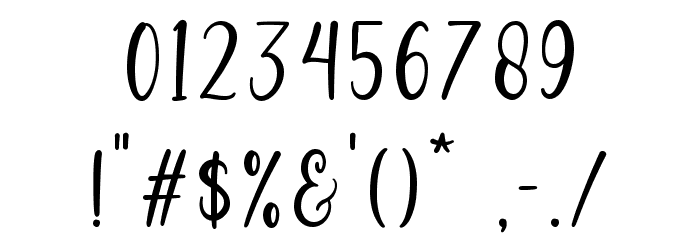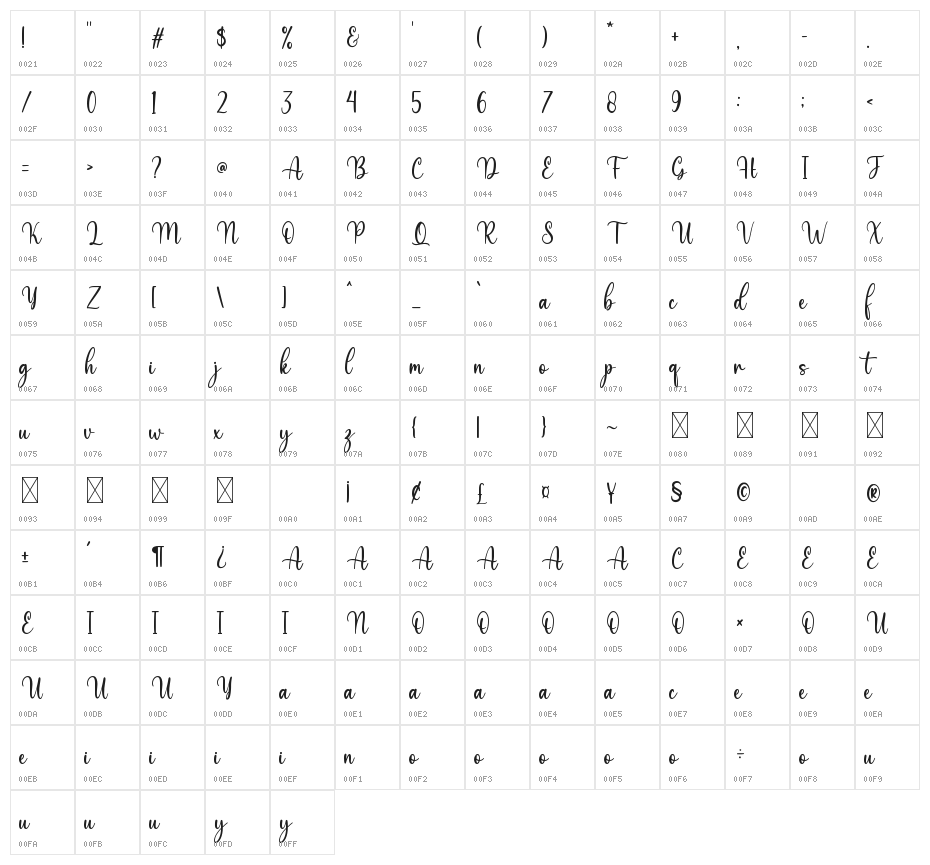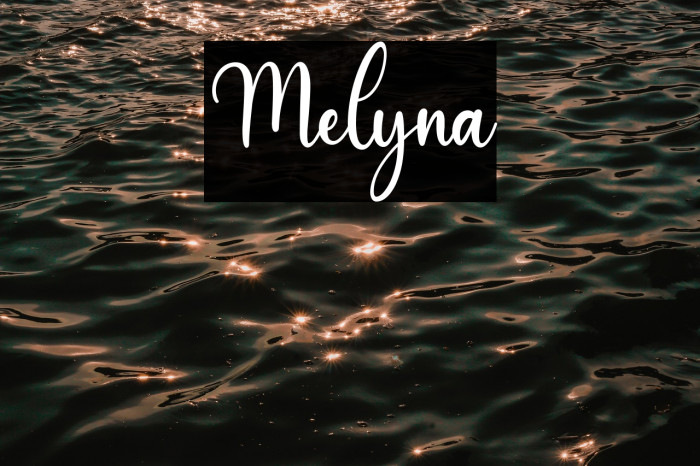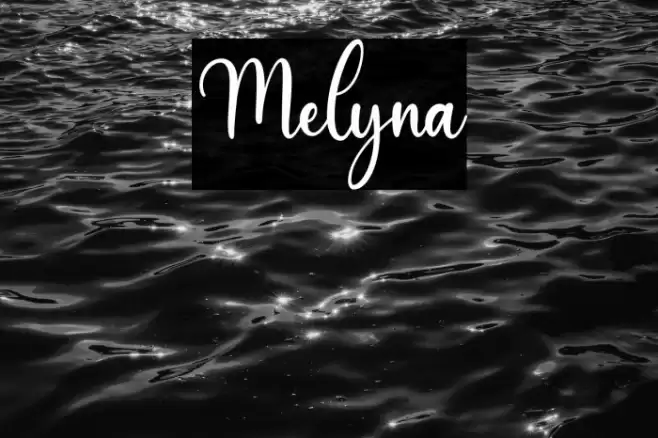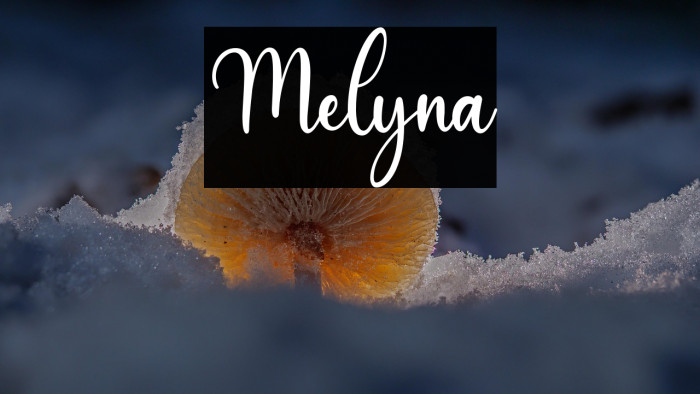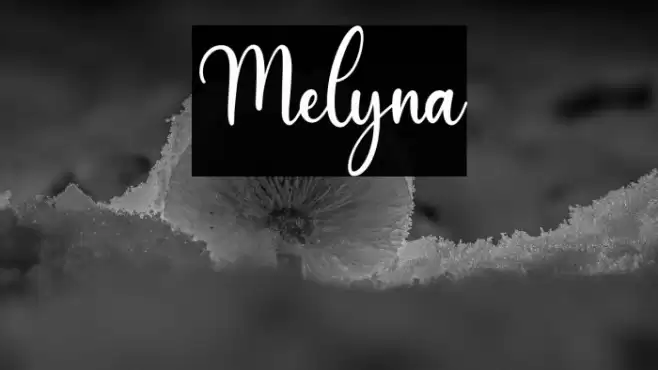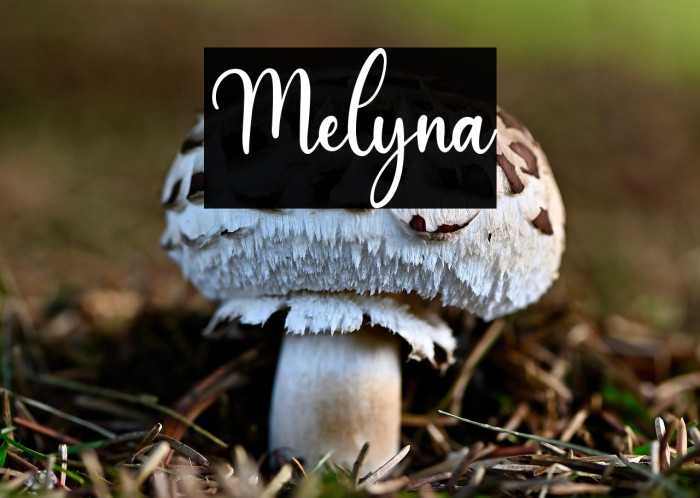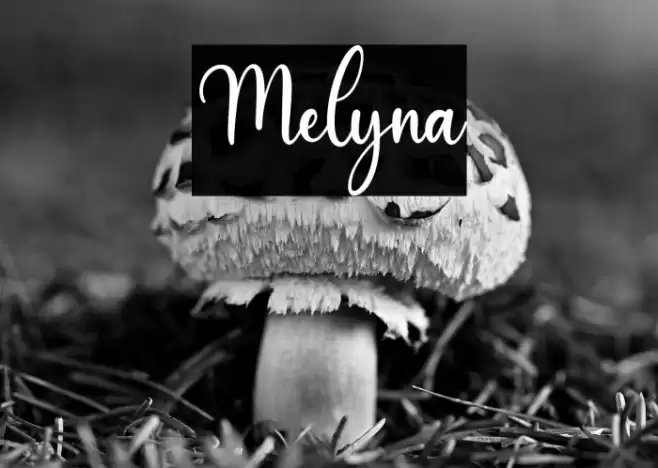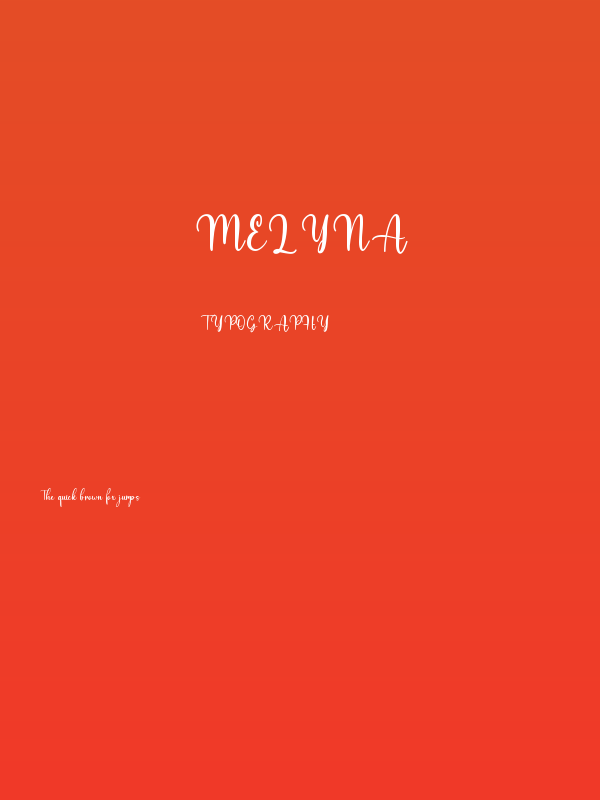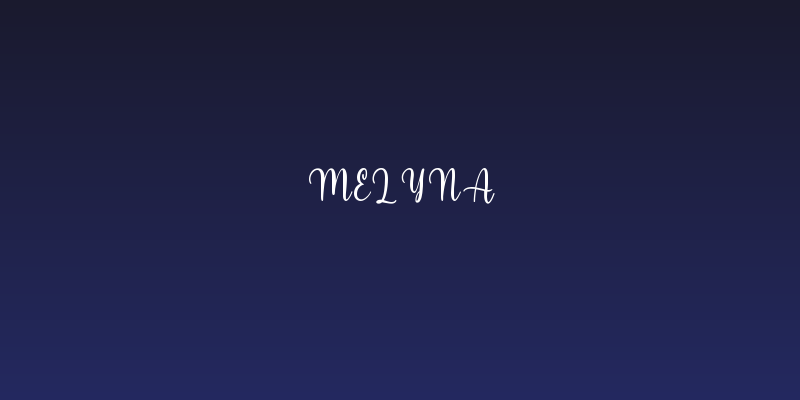
Melyna Font
Melyna Description
This font exudes a playful and elegant charm, characterized by its flowing script style. The uppercase letters are gracefully looped and connected, giving a sense of continuity and fluidity. The lowercase letters maintain a consistent style, with smooth curves and a slightly exaggerated slant that enhances its handwritten appearance. The numerals are clear and distinct, maintaining the same playful elegance as the letters. Special characters are well-integrated, ensuring versatility in various design contexts. Overall, this font combines a sense of sophistication with a touch of whimsy, making it suitable for creative and expressive projects.
| Overall Style | Elegant, Playful |
| Proposed Projects | Ideal for wedding invitations, greeting cards, branding projects, and any design requiring a personal touch. |